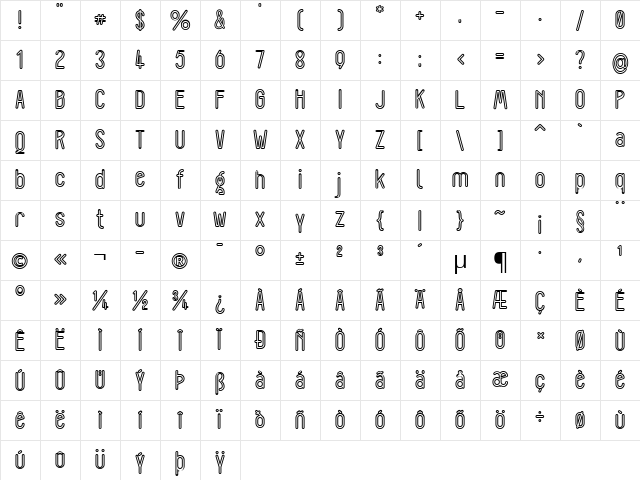
Complete Lorem Ipsum Regular glyph index. Displaying only characters natively supported by Lorem Ipsum Regular font.
Lorem Ipsum is a composed and adaptable typeface that performs quietly and consistently across a wide range of design contexts.
Who designed the Lorem Ipsum Regular font?
This font was published by Peter Wiegel. Check the technical specs section for copyright and designer details.